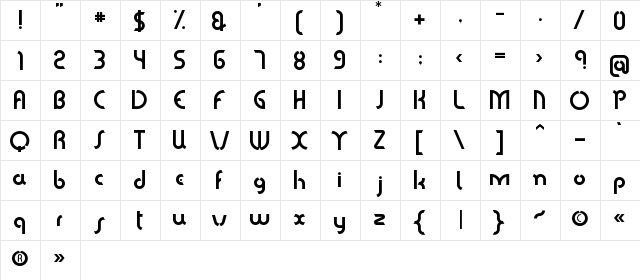
Untitled Regular Font Preview
Untitled Regular
Untitled Regular Font Details
| Foundry | Sabit Sugirov |
| Designer | Sabomaster |
Design Context for Untitled Typeface
Untitled is a composed and adaptable typeface that performs quietly and consistently across a wide range of design contexts.